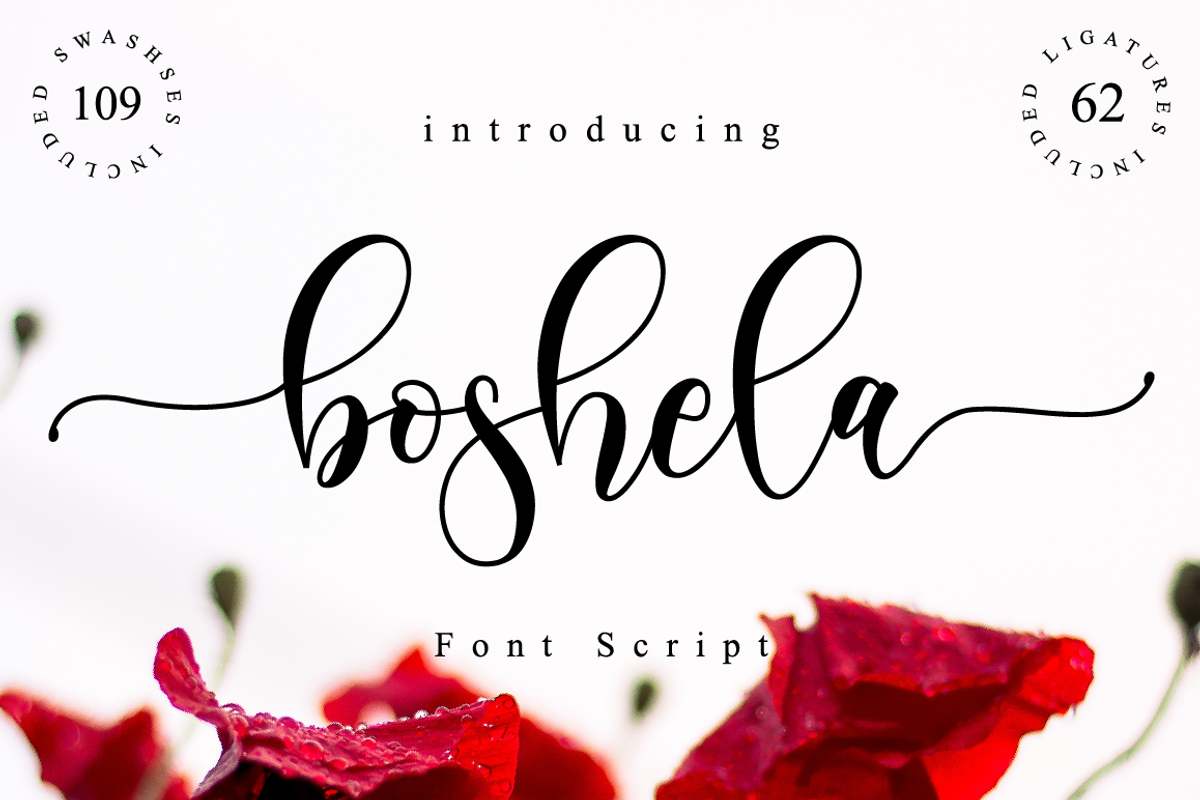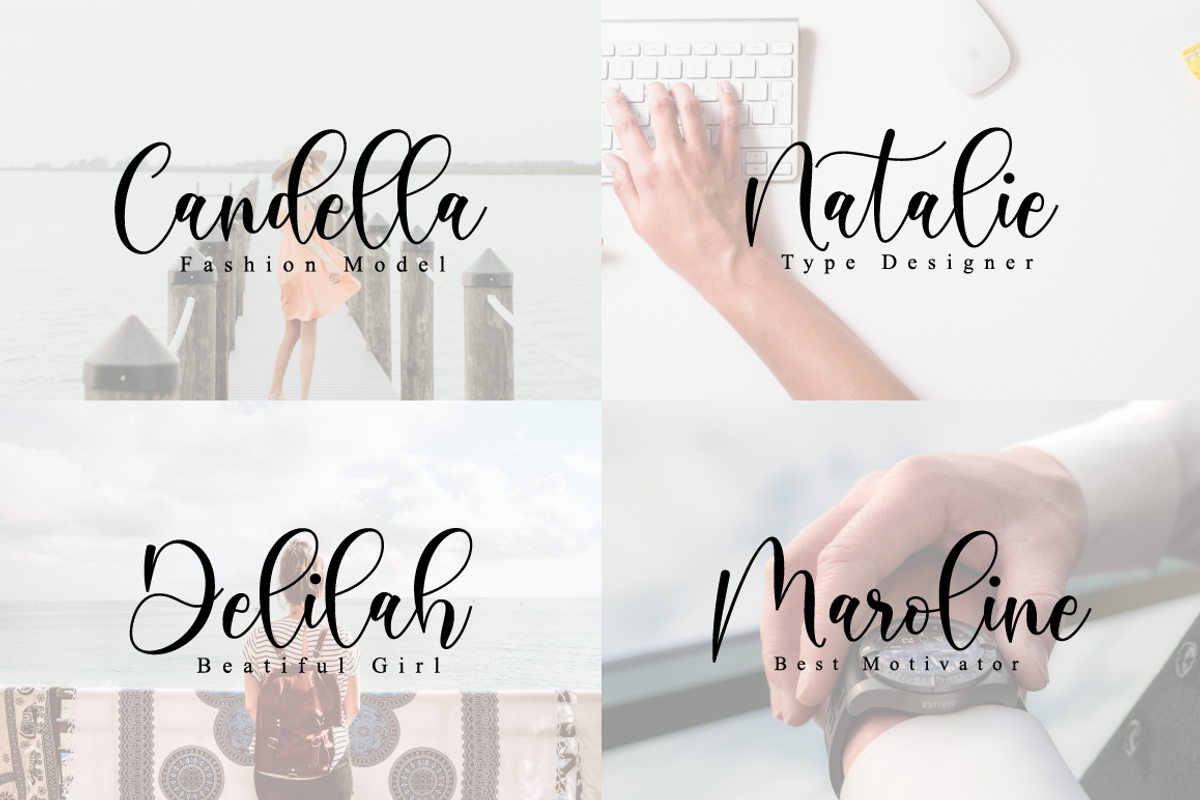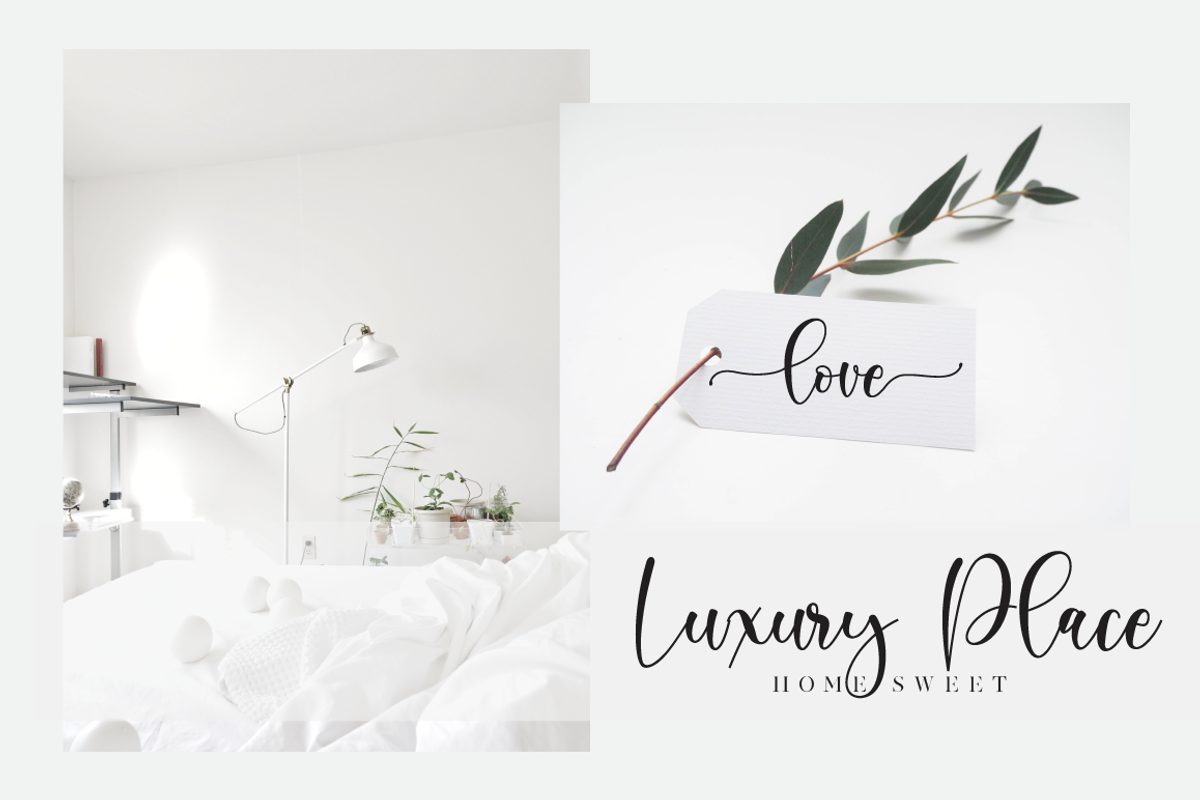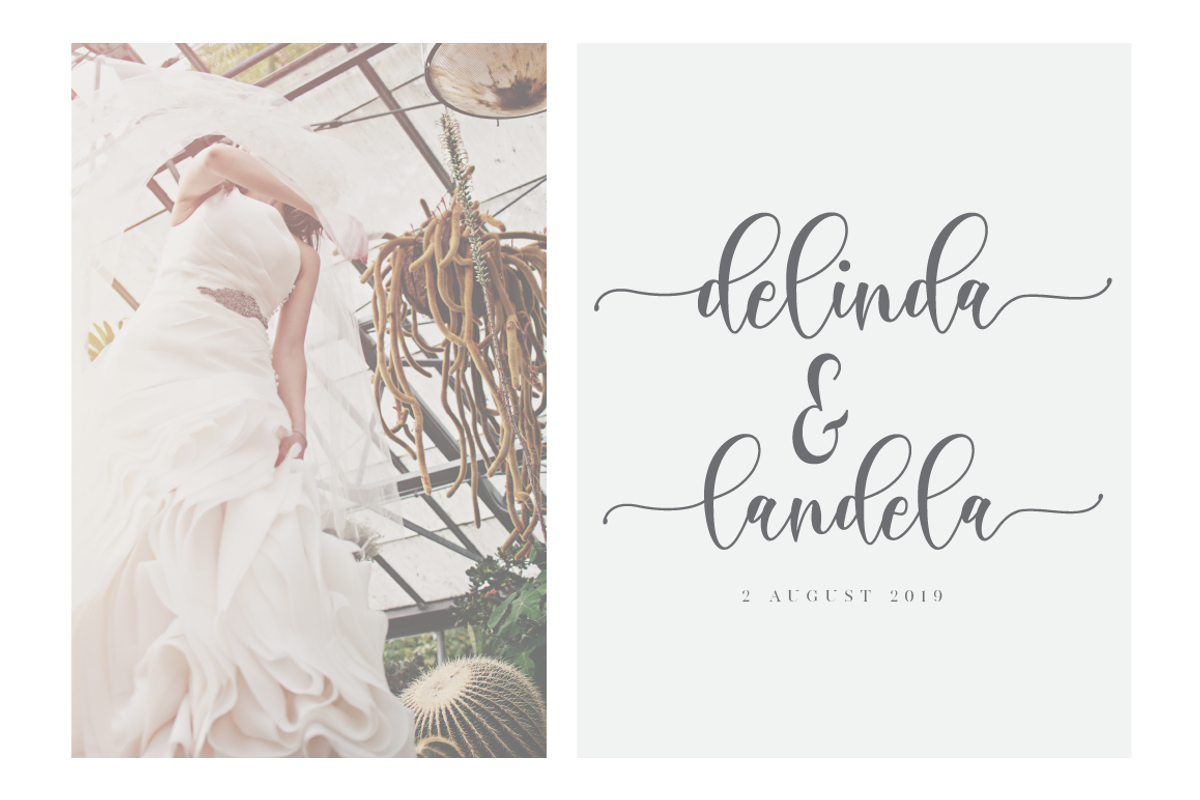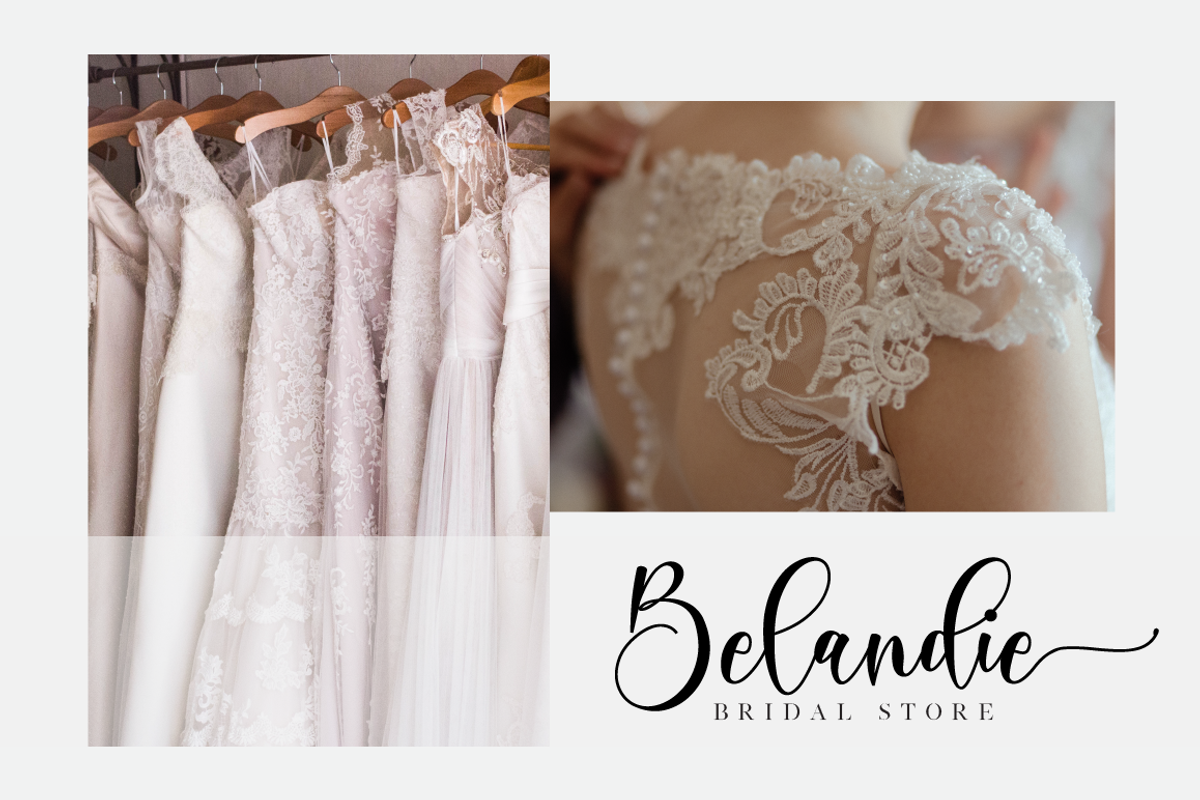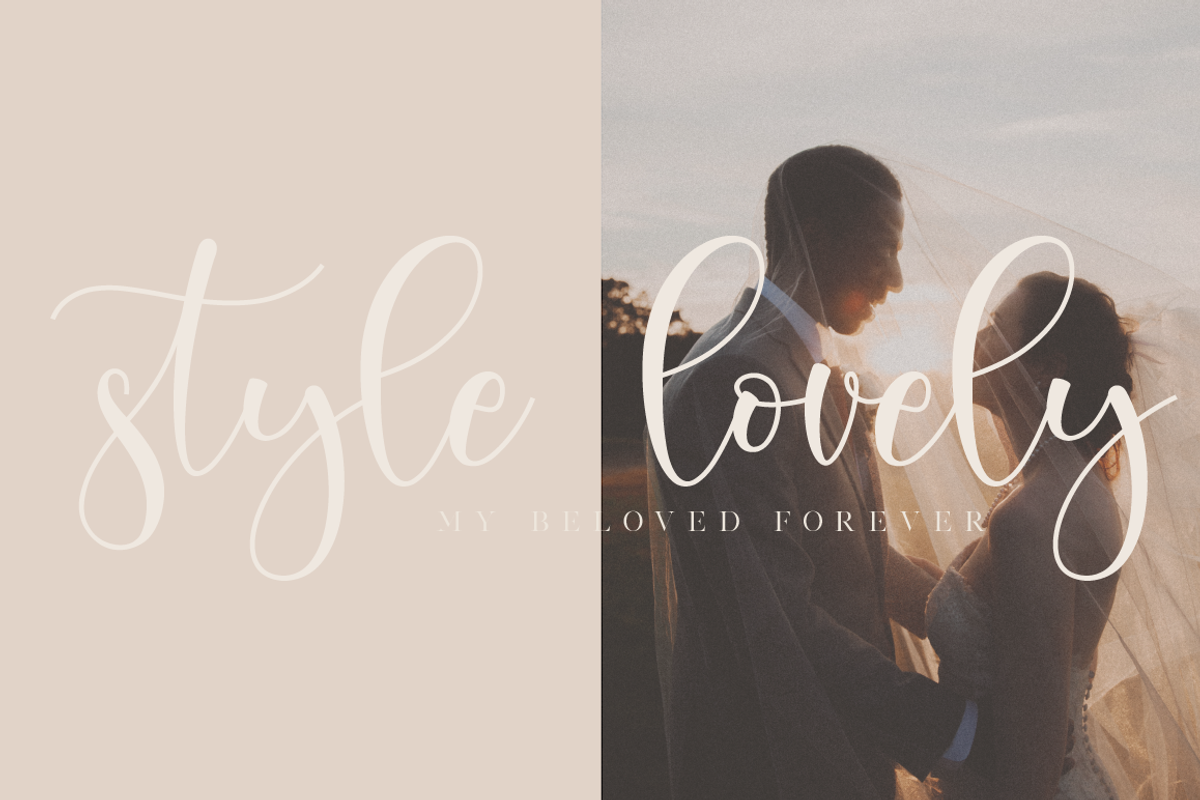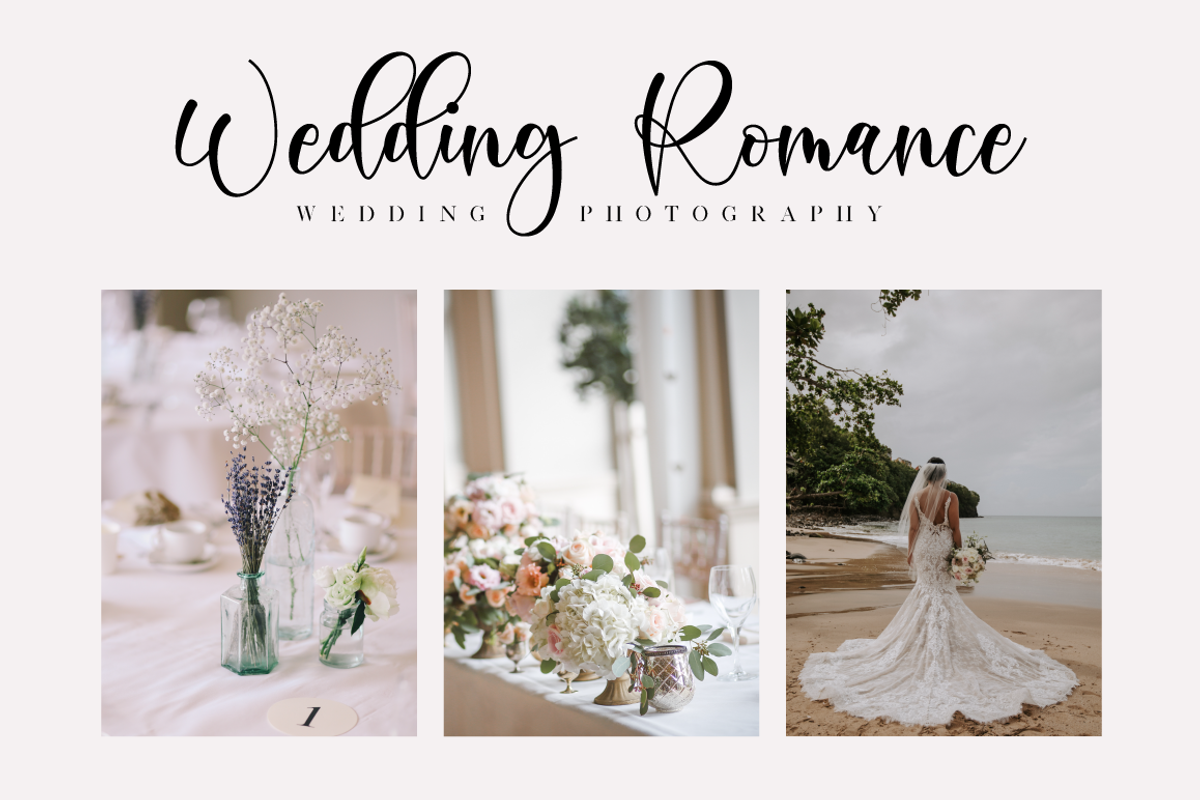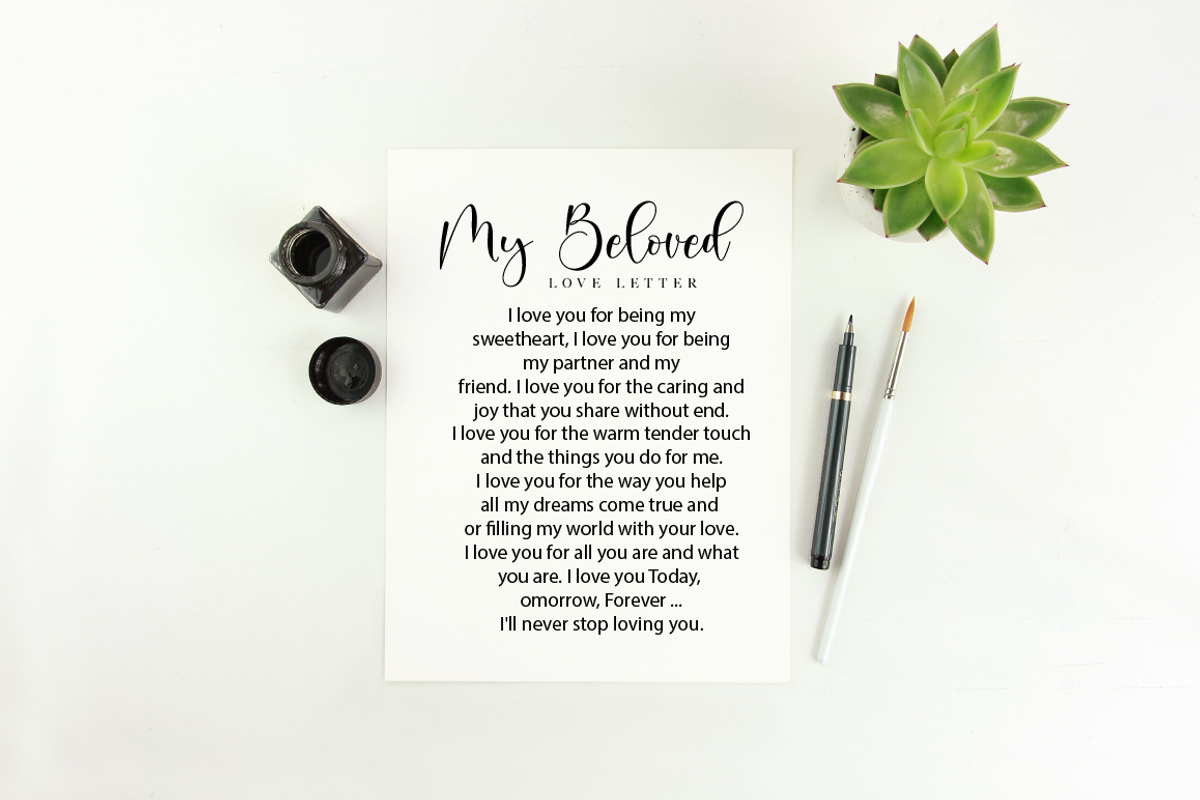
Boshela - Wedding Font
Boshela is a beautiful script font with a classy, elegant, and modern look. Get inspired by its authentic vibe!
- Modern Handwritten Font
- Beautiful Swash (Ending tail)
- Beautiful Titling (Beginning tail)
- Special Ligatures
Boshela - Wedding Font by Nissa Studio fits naturally into Branding, posters, packaging, typography.